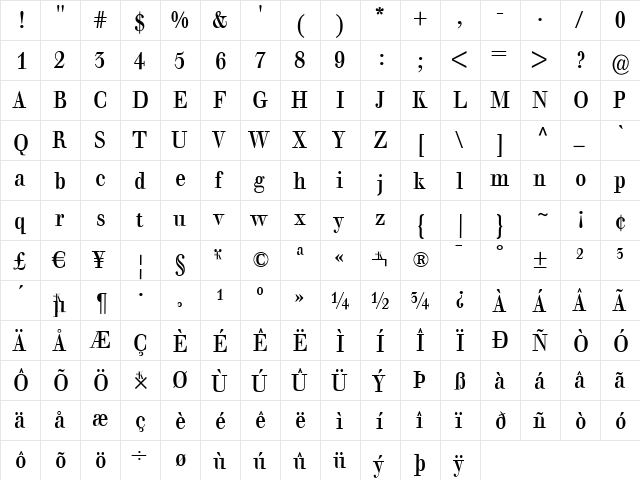
BaumWell Regular
Design Context for BaumWell Typeface
BaumWell offers clean, dependable letterforms without strong stylistic allegiance, making it a practical choice for designers who need flexibility.